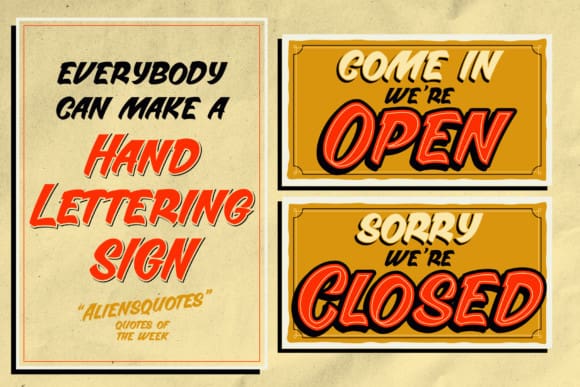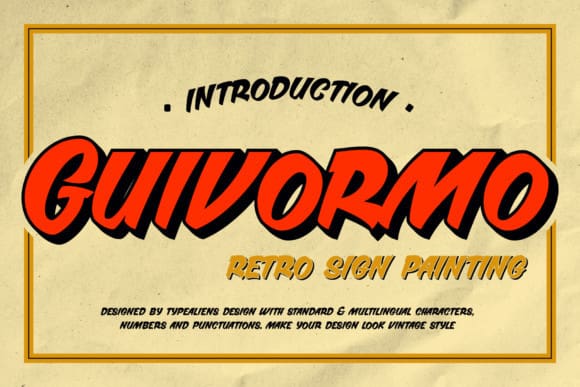
Guivormo Display Font
Guivormo Display Font is a sans serif with a retro style. It is an all-caps font with different uppercase and lowercase heights. A suitable font to support food or drink designs in a retro style.